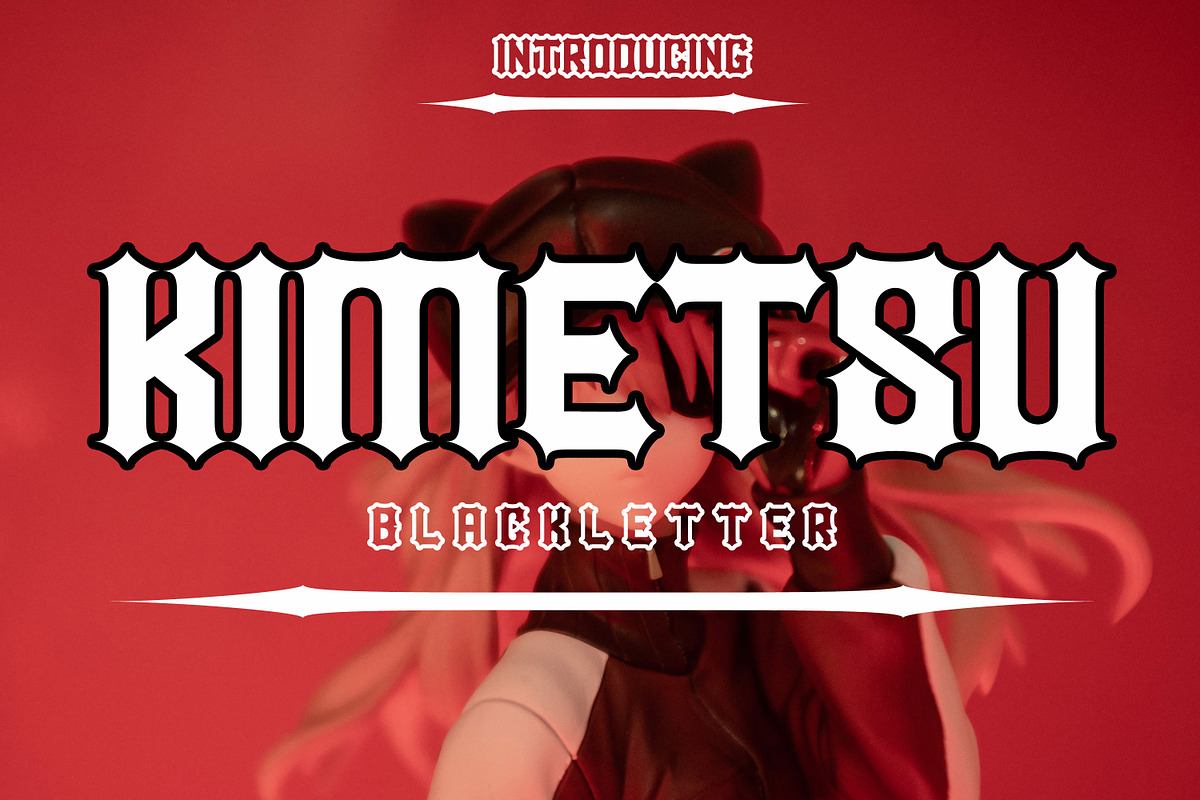
Kimetsu Font Free Download is a bold, stylized typeface inspired by the dynamic aesthetics of Japanese anime, particularly drawing influence from the popular Demon Slayer (Kimetsu no Yaiba) series. With sharp strokes, dramatic flair, and strong character design, this font is ideal for fan art, anime posters, gaming visuals, cosplay event branding, and themed merchandise. It delivers a powerful and action-packed vibe that anime fans will instantly recognize.
Using the Kimetsu Font Free Download gives your design a cinematic, expressive edge—perfect for eye-catching titles or branding that needs a heroic, traditional-meets-modern look. Whether for print or digital, it creates an instantly engaging visual presence.